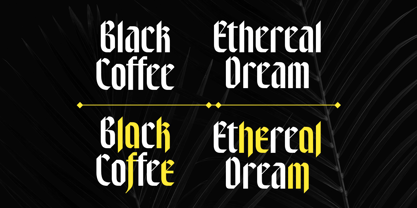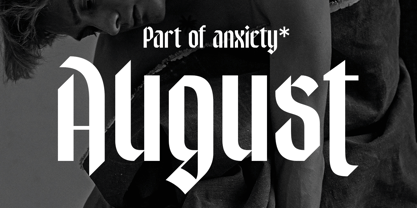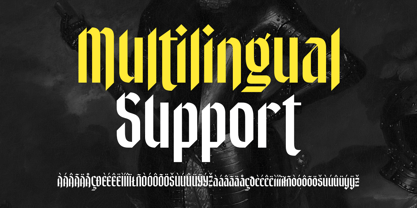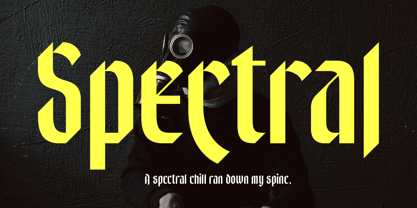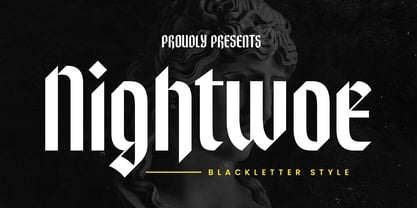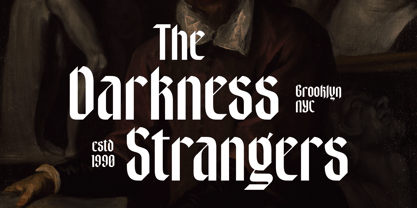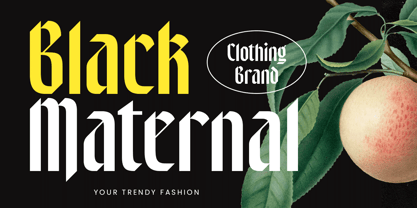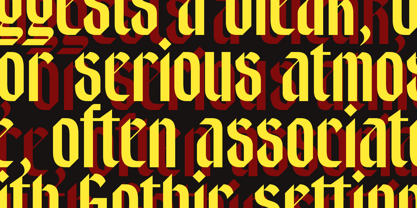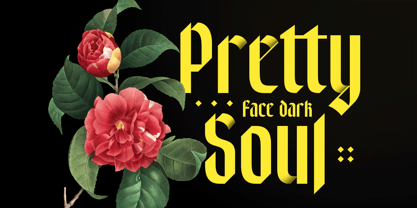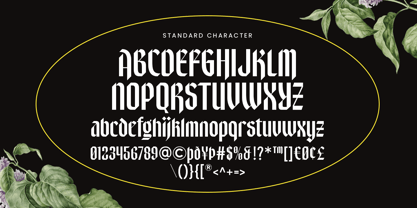
Nightwoe
by DGtype
The Nightwoe Font Family was designed by Ahmad Ramzi Fahruddin and published by DGtype. Nightwoe contains 1 styles. More about this family
Nightwoe is a modern blackletter typeface. Inspired by medieval gothic style, designed with elegant strokes and minimalist letterform make this font looks unique and versatile to use for many purposes.
Equipped with stylistic alternates that you can give the more typographic touch for your design such like logo, logotype, poster, apparel, flyer, quotes, books and many more.